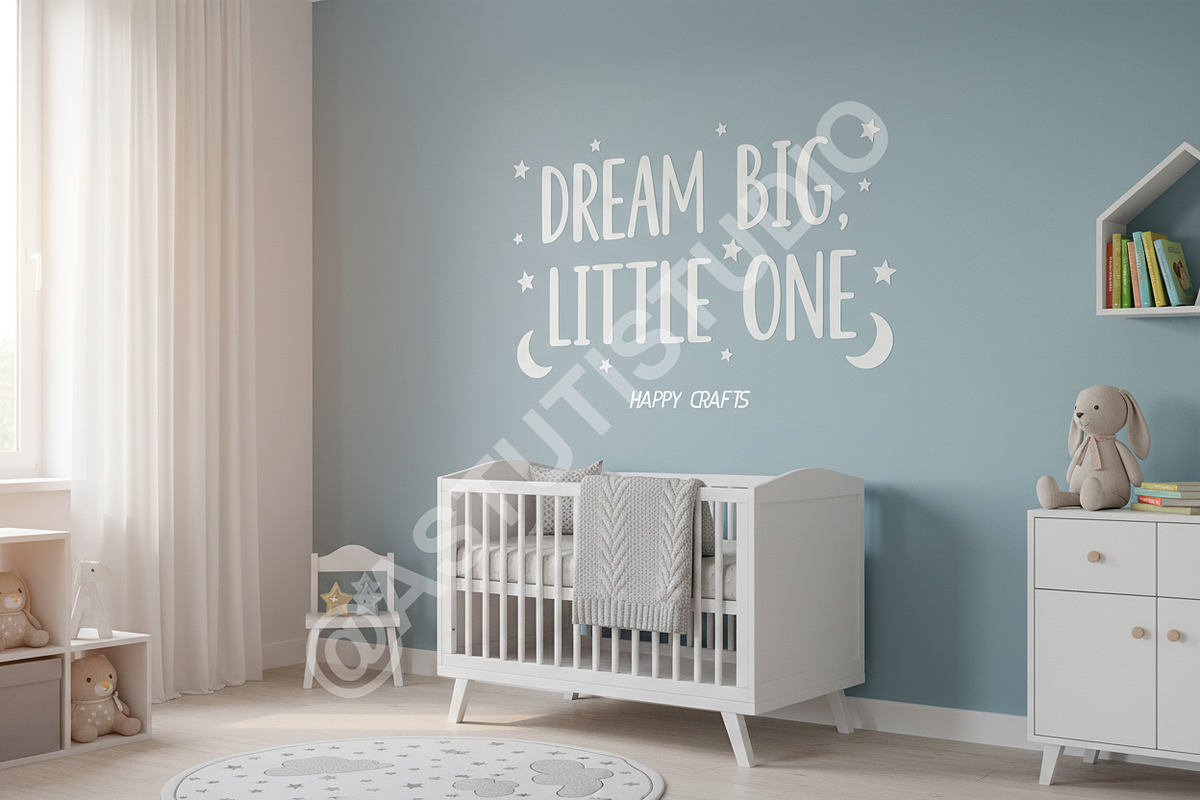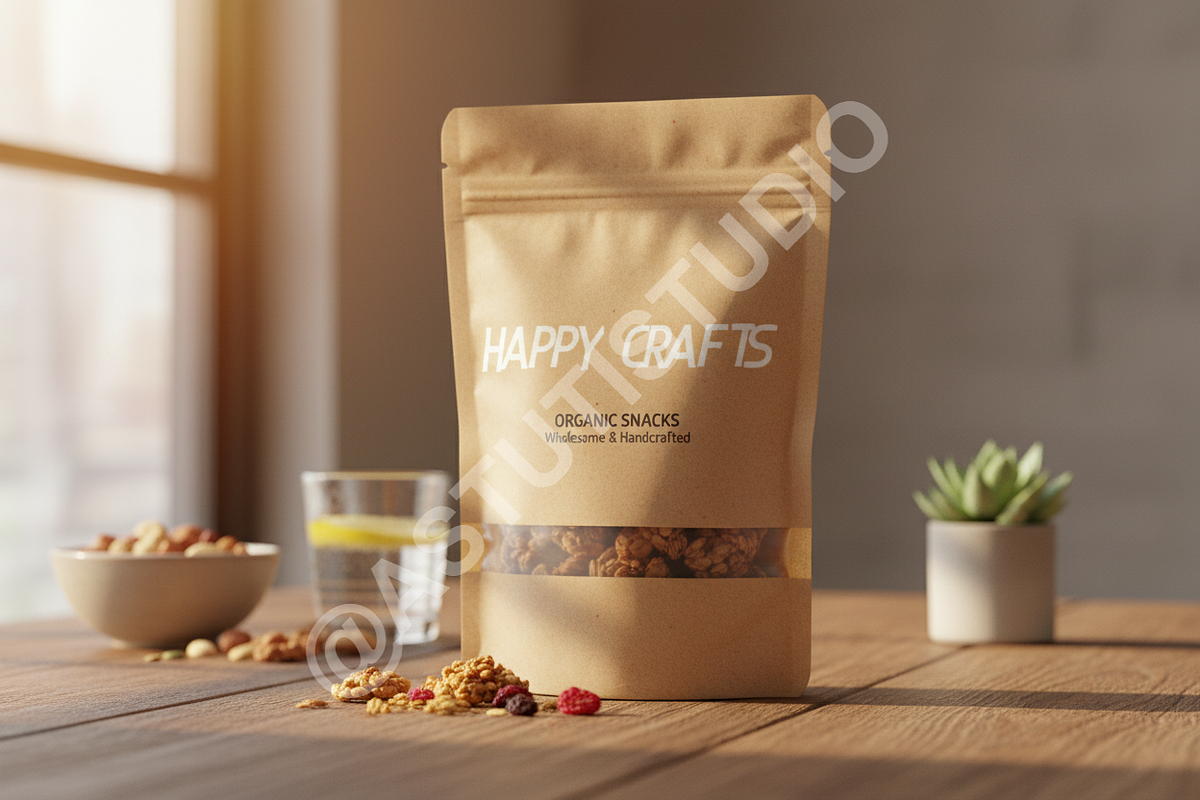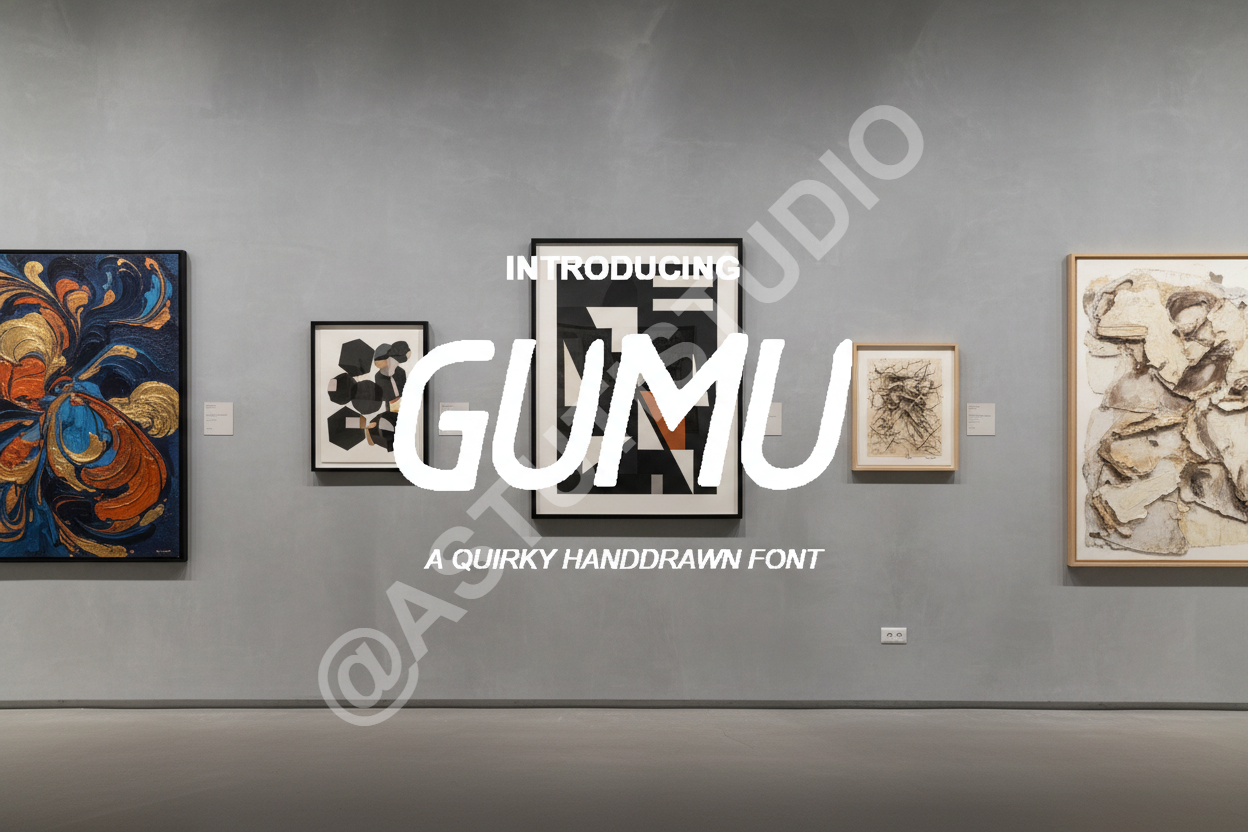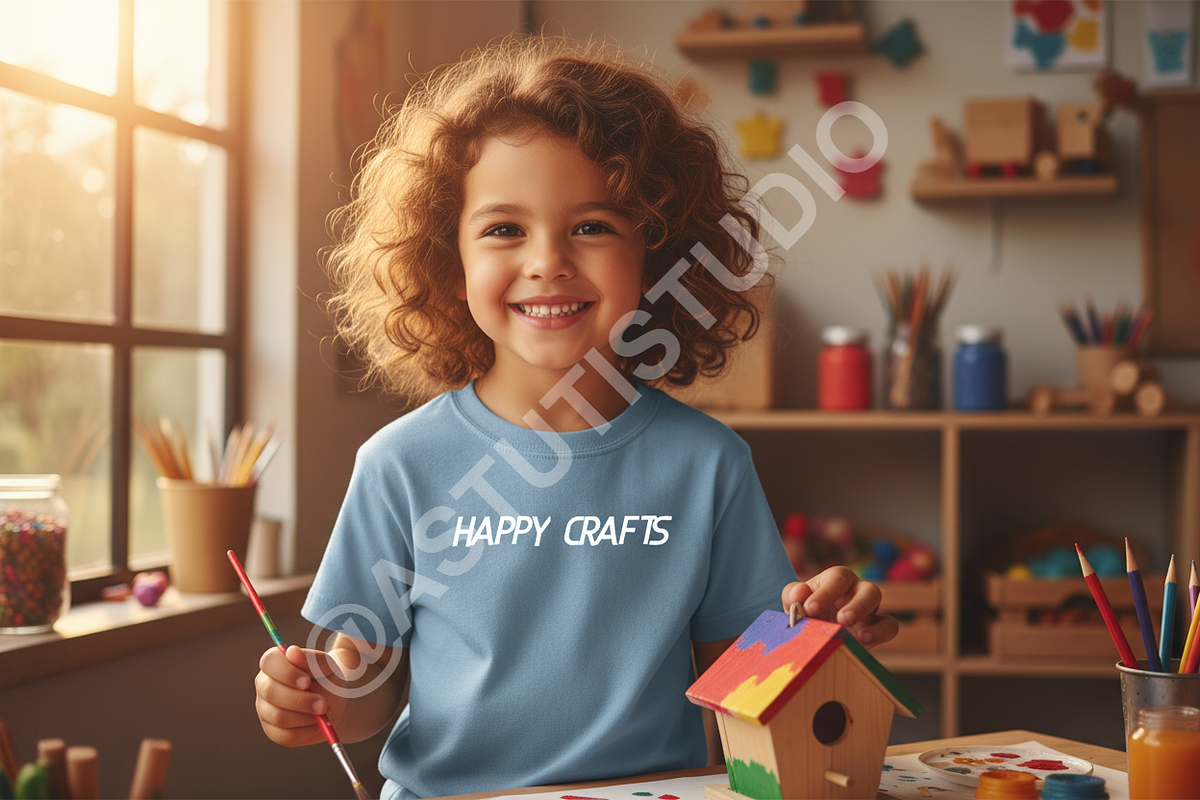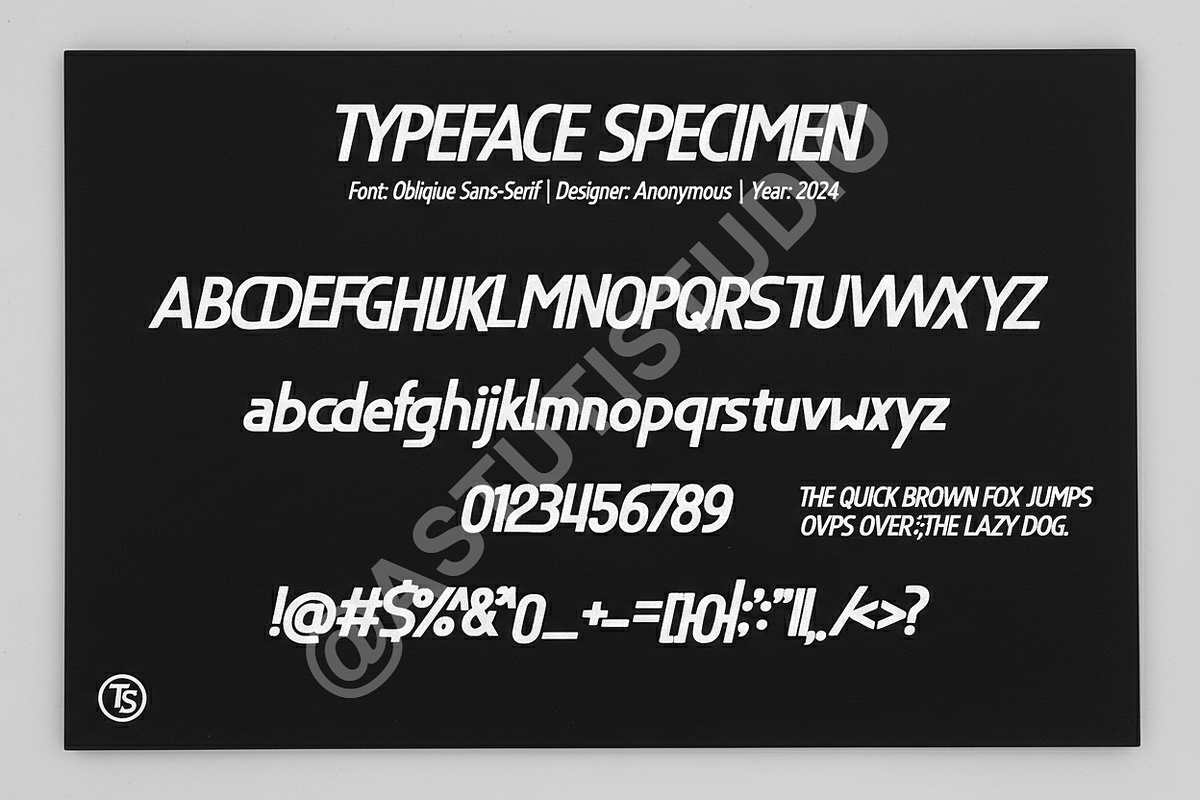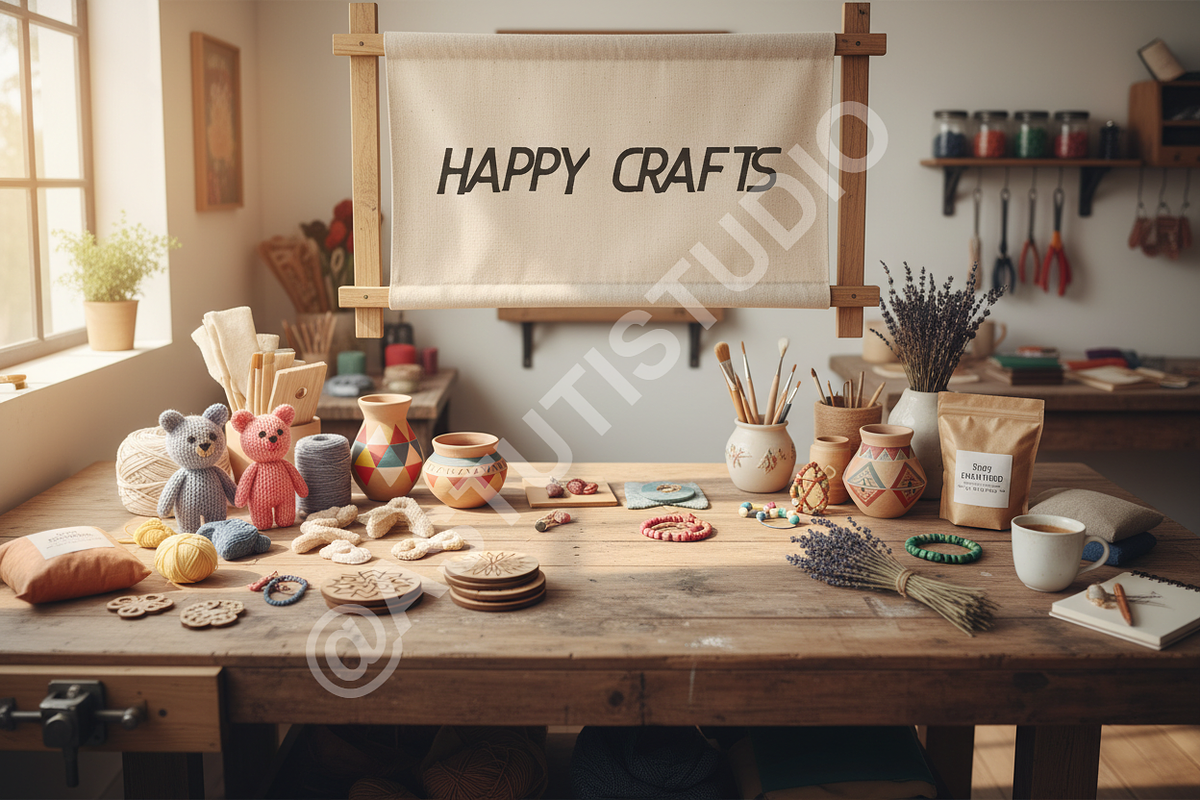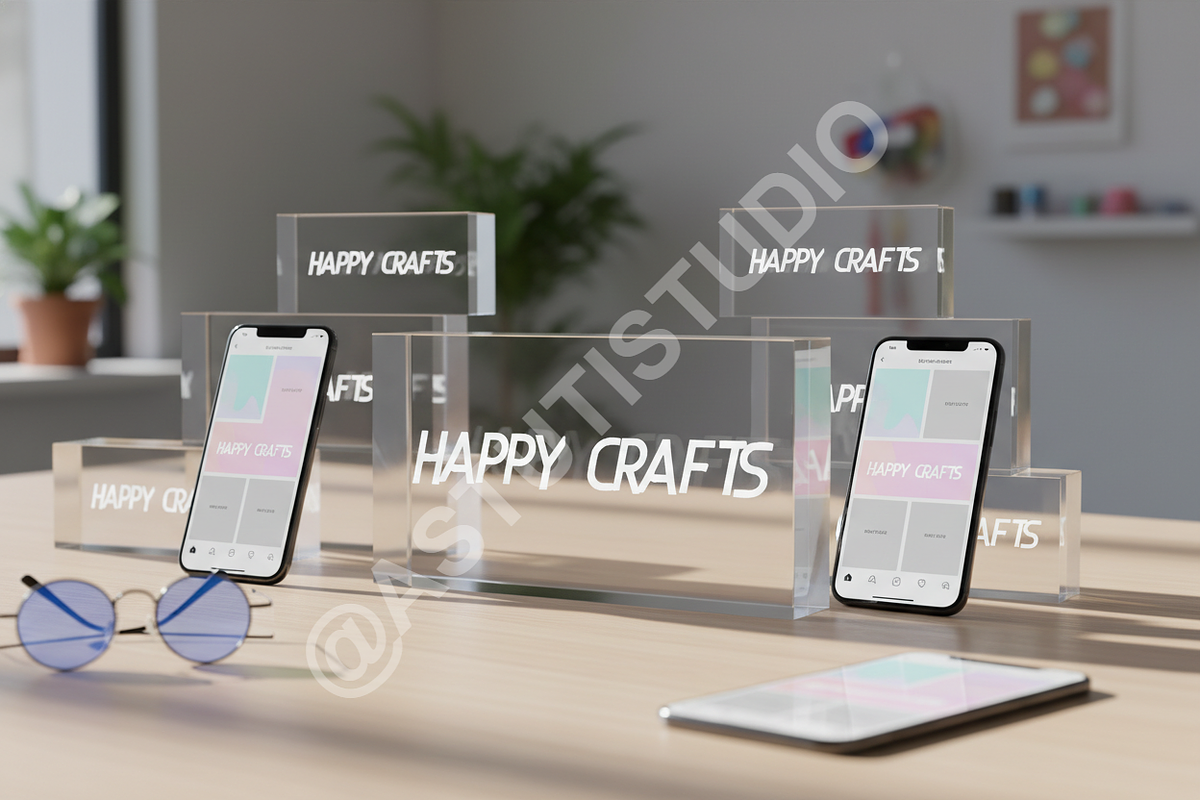
Gumu - Elegant Luxury Serif Typeface
Gumu - A Timeless Luxury Serif Typeface
Elevate your design projects with Gumu, a premium serif font meticulously crafted for the modern aesthetic. Designed by a high-end creative studio, Gumu strikes the perfect balance between classic elegance and contemporary edge. Whether you are working on high-end branding, editorial layouts, or sophisticated social media content, Gumu provides a polished and professional touch that commands attention.
- Elegant high-contrast strokes for a luxury feel
- Unique stylistic alternates and ligatures for custom looks
- Clean and sophisticated letterforms with balanced spacing